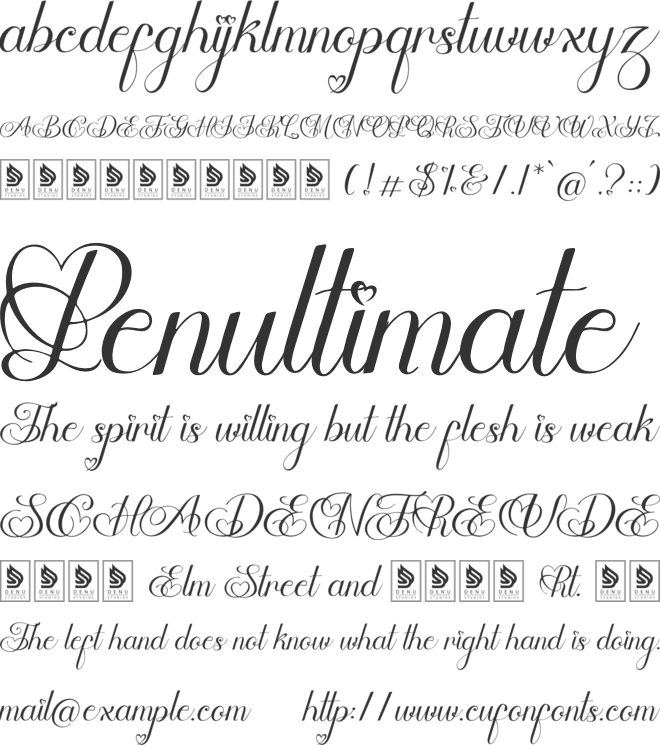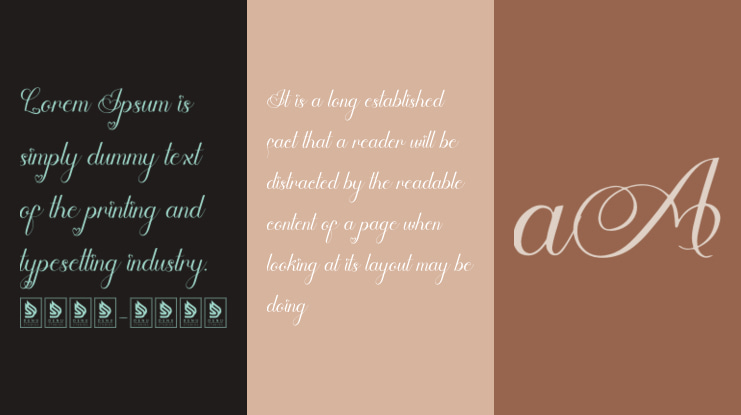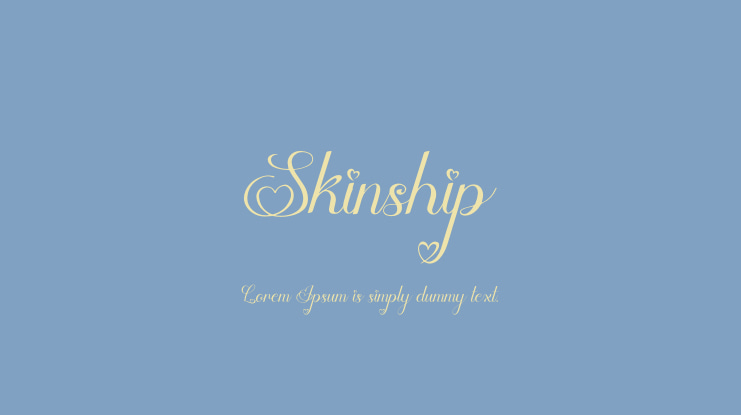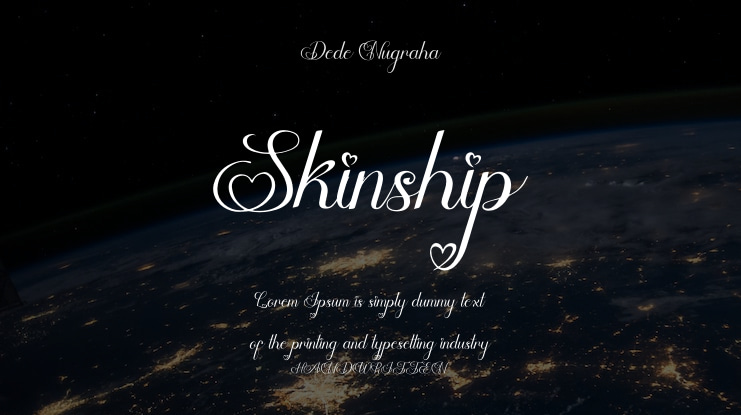
Skinship | Love Script Font is suitable for any projects such as: logos, branding projects, homeware designs, product packaging, mugs, quotes, posters, shopping bags, t-shirts, book covers, name card, invitation cards, greeting cards, label, photography, watermark, special events, and all your other lovely projects that need a Love Script Font taste.